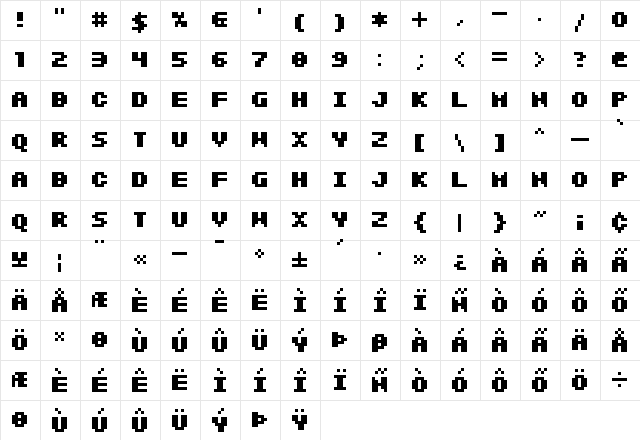
SF Intermosaic B Bold
| Foundry | ShyFoundry |
| Designer | Derek Vogelpohl |
Design Context for SF Intermosaic B Typeface
SF Intermosaic B is a composed and adaptable typeface that performs quietly and consistently across a wide range of design contexts. The heavy weight commands attention and anchors typographic hierarchies.